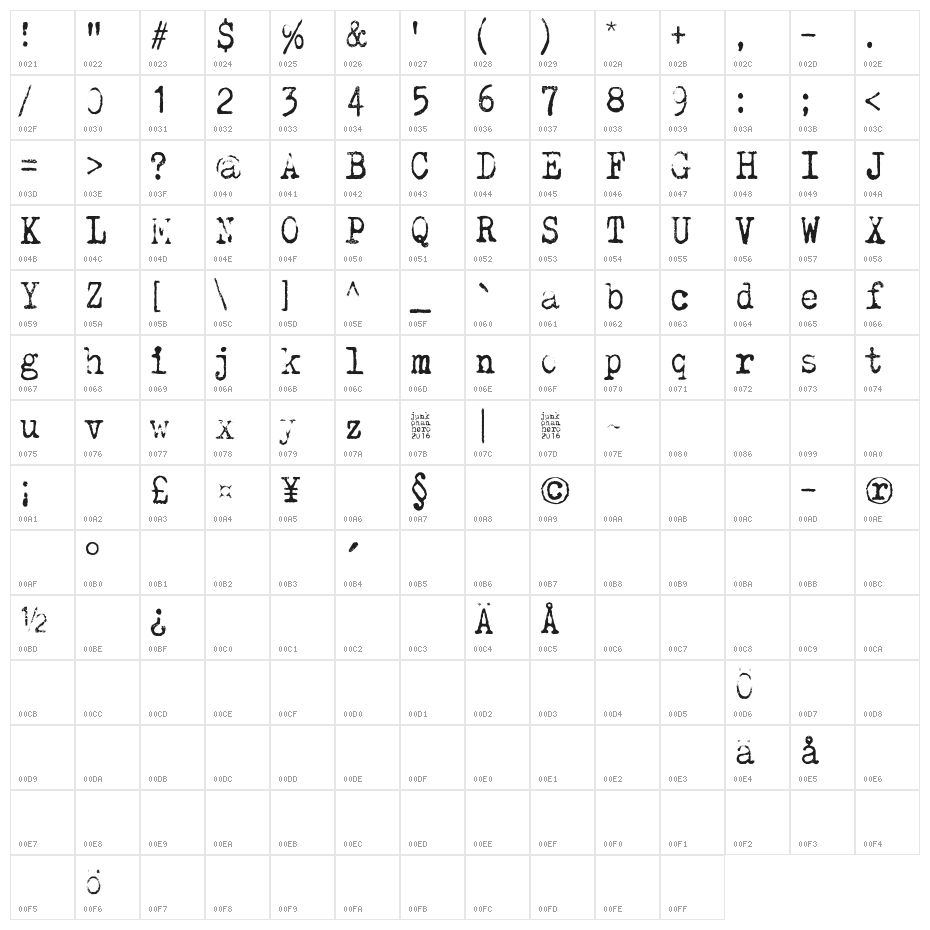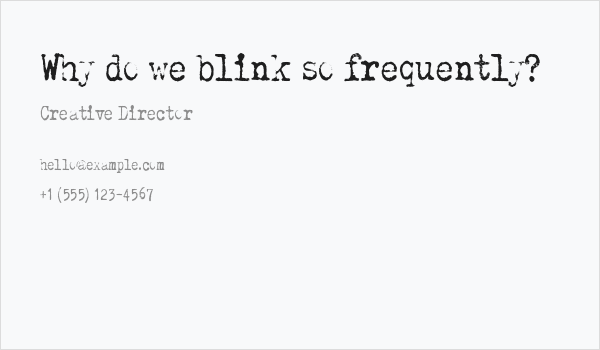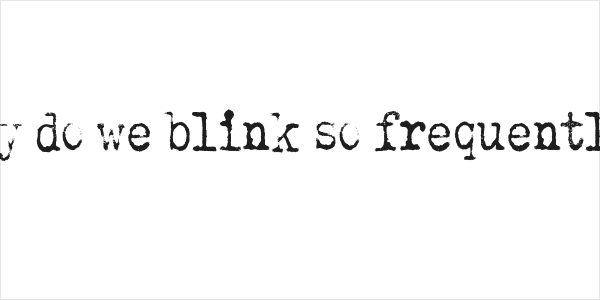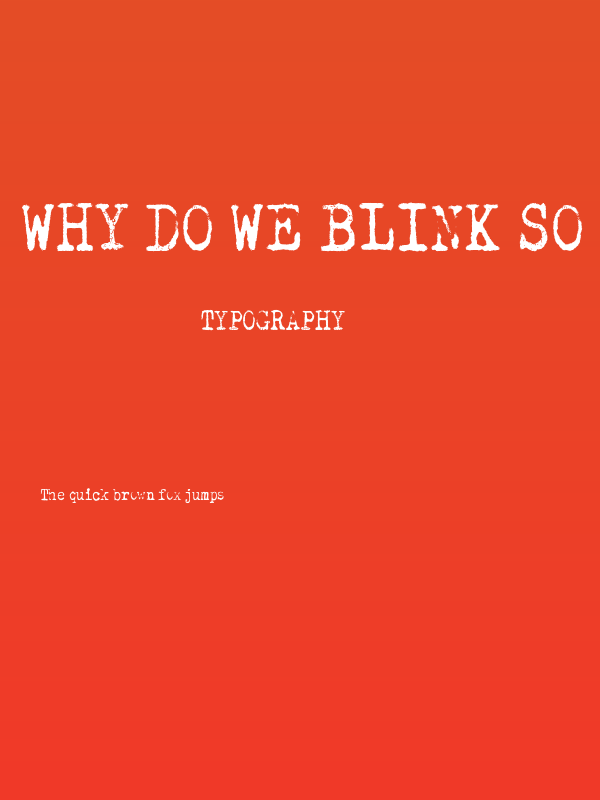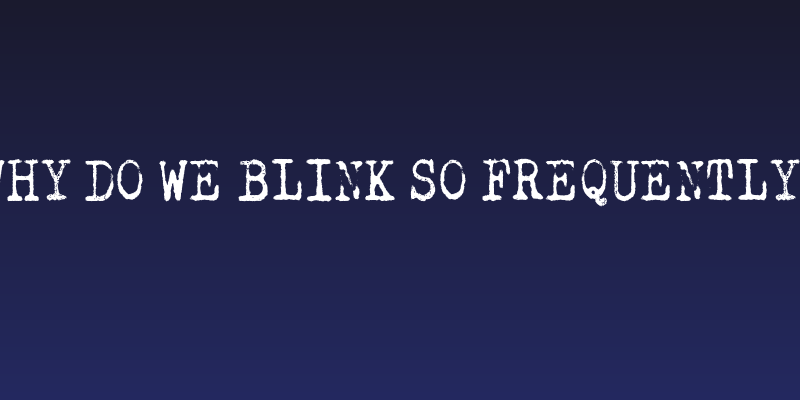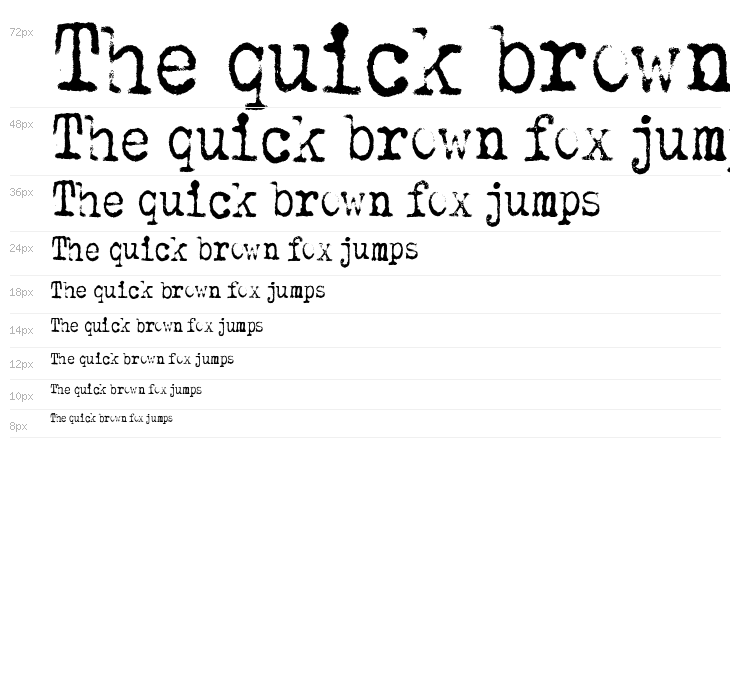
Why do we blink so frequently? Font
Why do we blink so frequently? Description
This font features a distressed, vintage typewriter style with a textured appearance that mimics the look of ink on paper. The characters have a slightly uneven baseline, adding to the authentic, aged feel. The uppercase and lowercase letters maintain a consistent style, with serifs that are pronounced yet slightly irregular, enhancing the rustic charm. Numbers and special characters follow the same aesthetic, making the font versatile for various design needs. The overall look is reminiscent of old newspapers or typewritten documents, perfect for projects seeking a nostalgic or historical touch.
| Proposed Projects | Ideal for vintage-themed posters, historical documents, retro branding, and creative projects that require an aged, authentic look. |